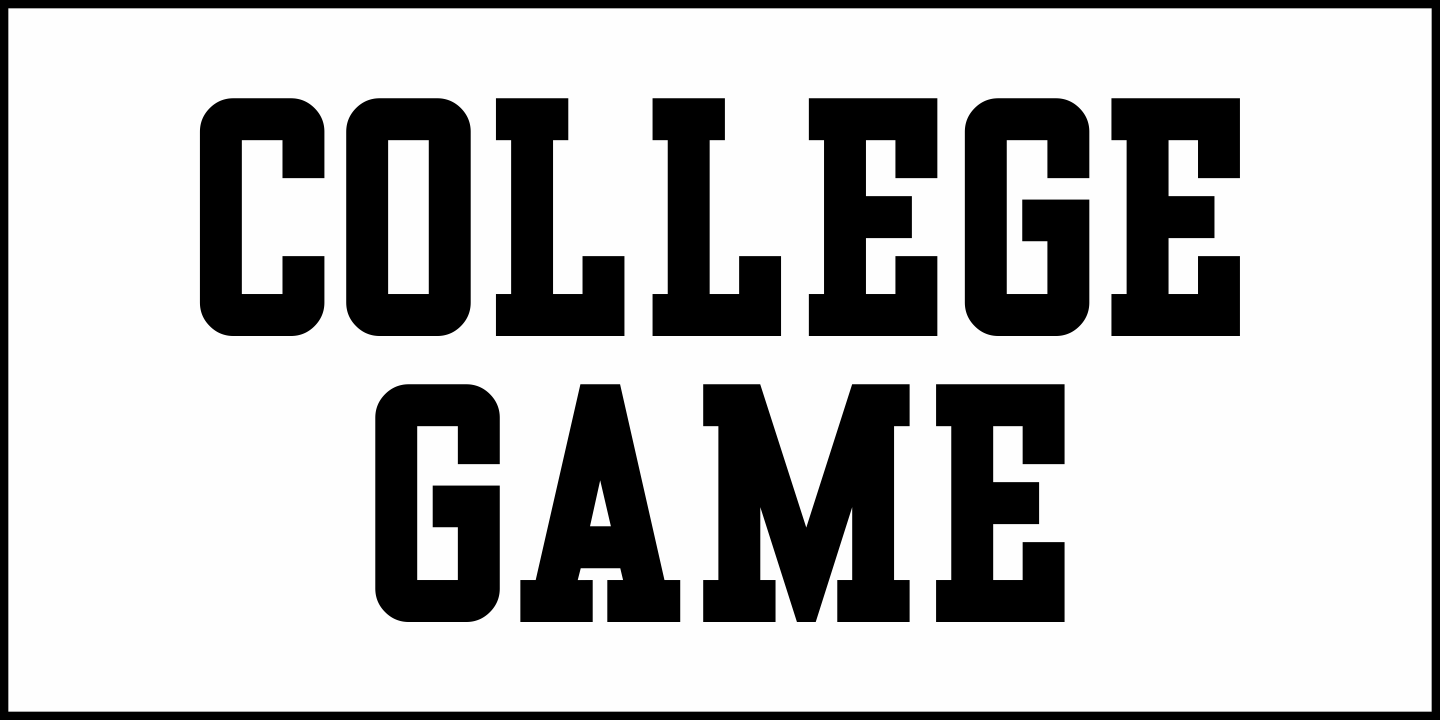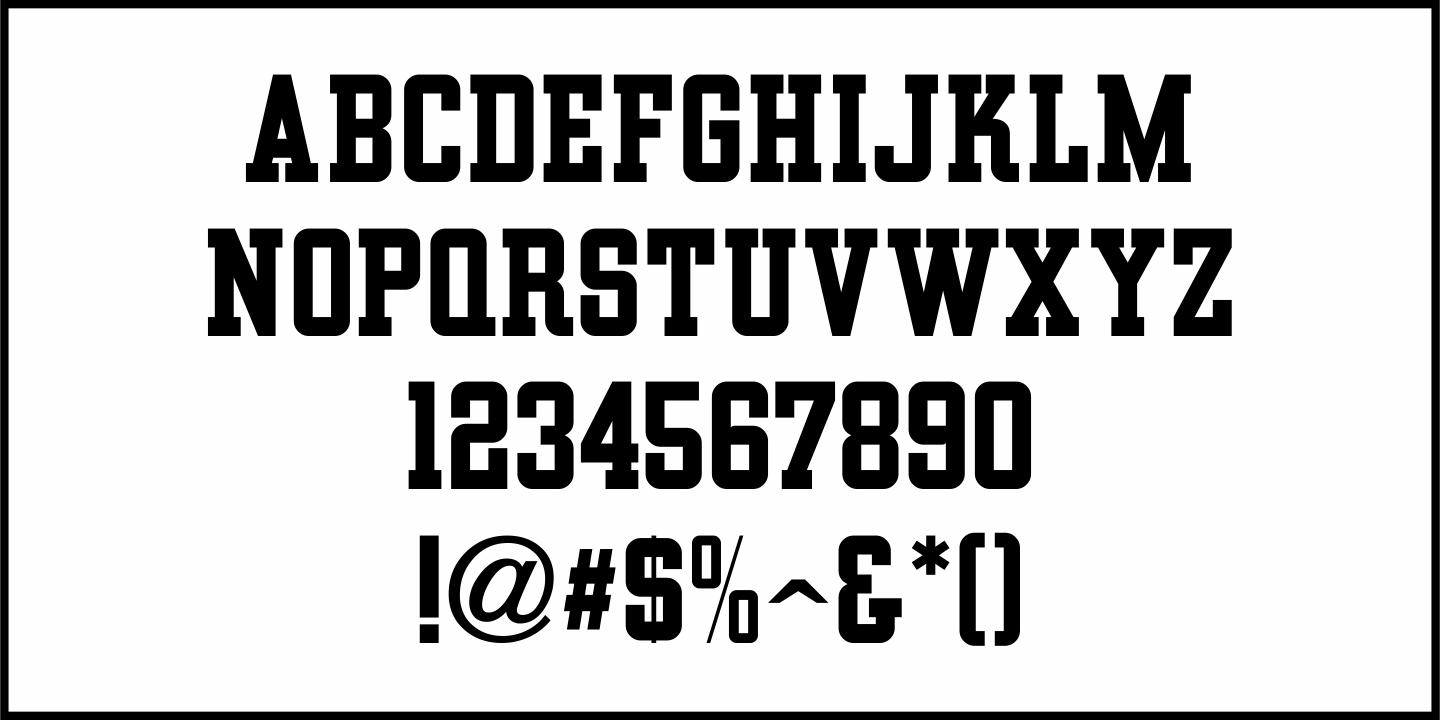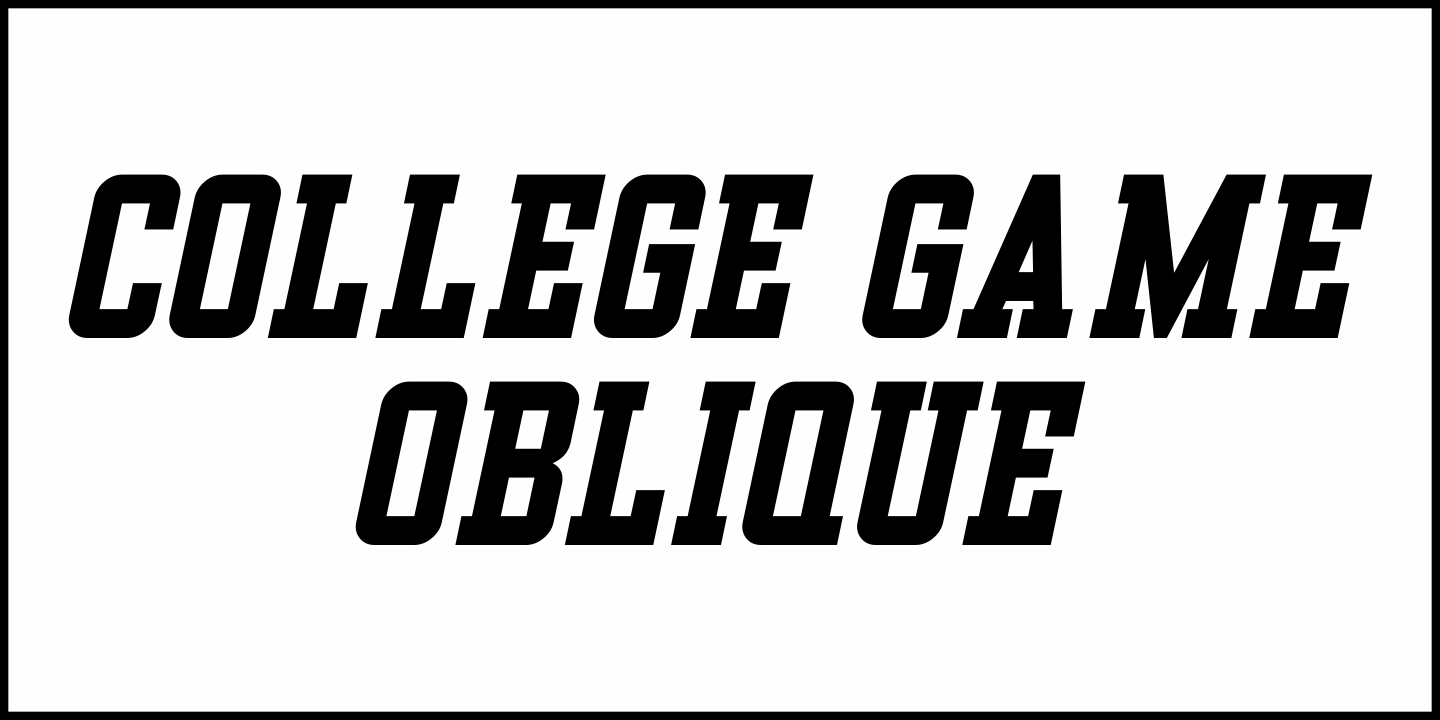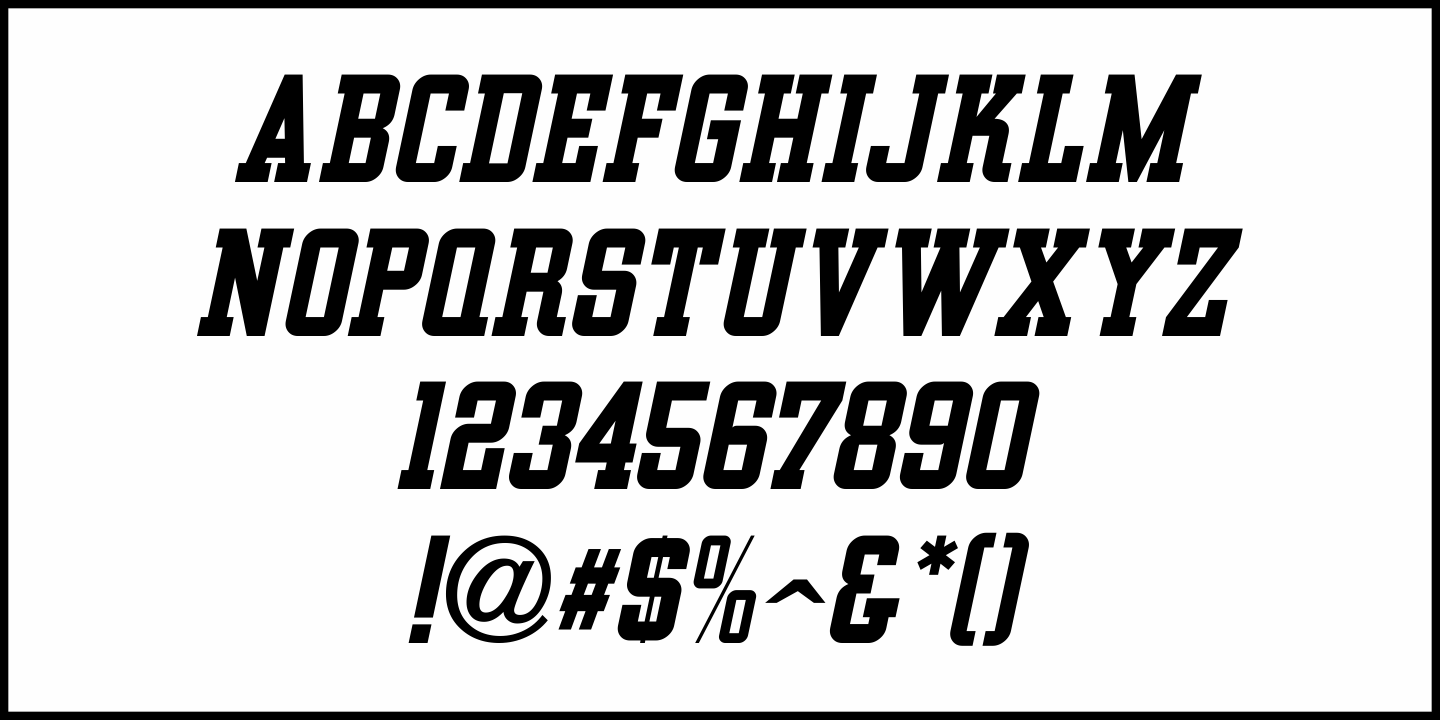
College Game
The hand lettered credits for the 1940 horror film “The Invisible Woman” look more like they would show up in a movie about a college football game.
A bold, condensed slab serif type design, it’s perfect for many sports-themed graphics projects.
The digital version has been aptly named College Game JNL, and is available in both regular and oblique versions.
College Game JNL Regular by Jeff Levine Fonts